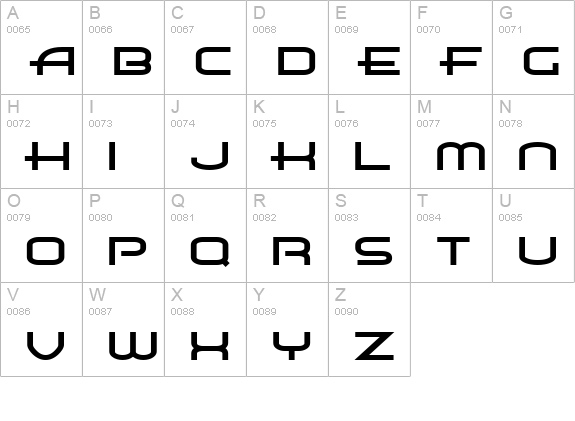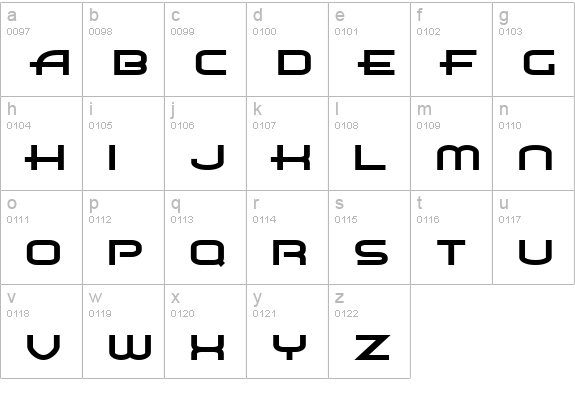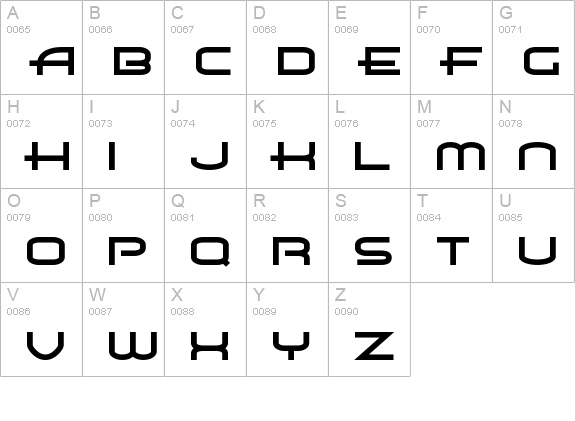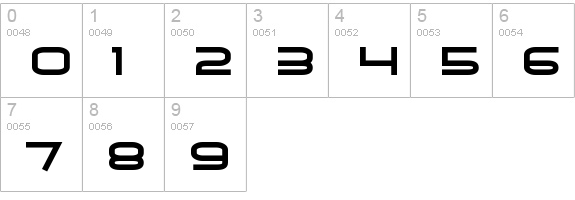
Air Flow BTN Bold Font Details
Air Flow BTN Bold is a strong, high-contrast variant in the Air typeface family \xE2\x80\x94 well suited to headlines, attention-grabbing titles, and strong calls-to-action.
Air Flow BTN Bold font is a bold and impactful typeface designed to catch the eye and make a statement. With its strong and sturdy letterforms, this font exudes confidence and modernity. The thick strokes and clean lines give it a contemporary edge, making it perfect for a variety of design projects. What sets Air Flow BTN Bold font apart is its versatility - it can be used for headlines, branding, posters, packaging, and more. Whether you're looking to make a bold statement or add a touch of sophistication to your designs, this font has got you covered. And the best part? Air Flow BTN Bold font is free to download at FontsMarket.com! So you can elevate your designs without breaking the bank. Don't miss out on this fantastic opportunity to add a touch of boldness to your projects with Air Flow BTN Bold font.